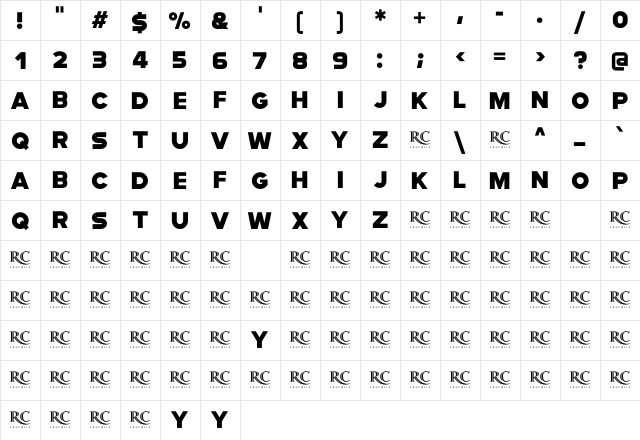
Modia-NonCommercial Regular
| Designer | Robin Campistron |
Design Context for Modia-NonCommercial Typeface
Modia-NonCommercial is a composed and adaptable typeface that performs quietly and consistently across a wide range of design contexts.